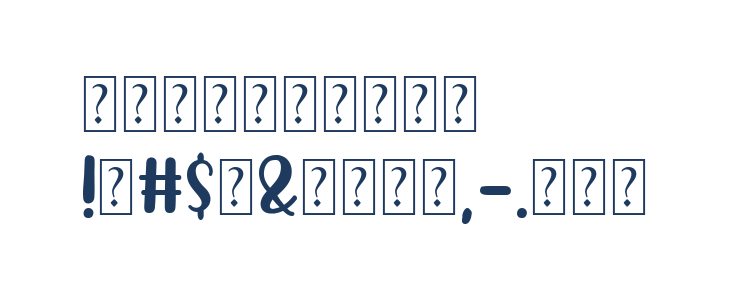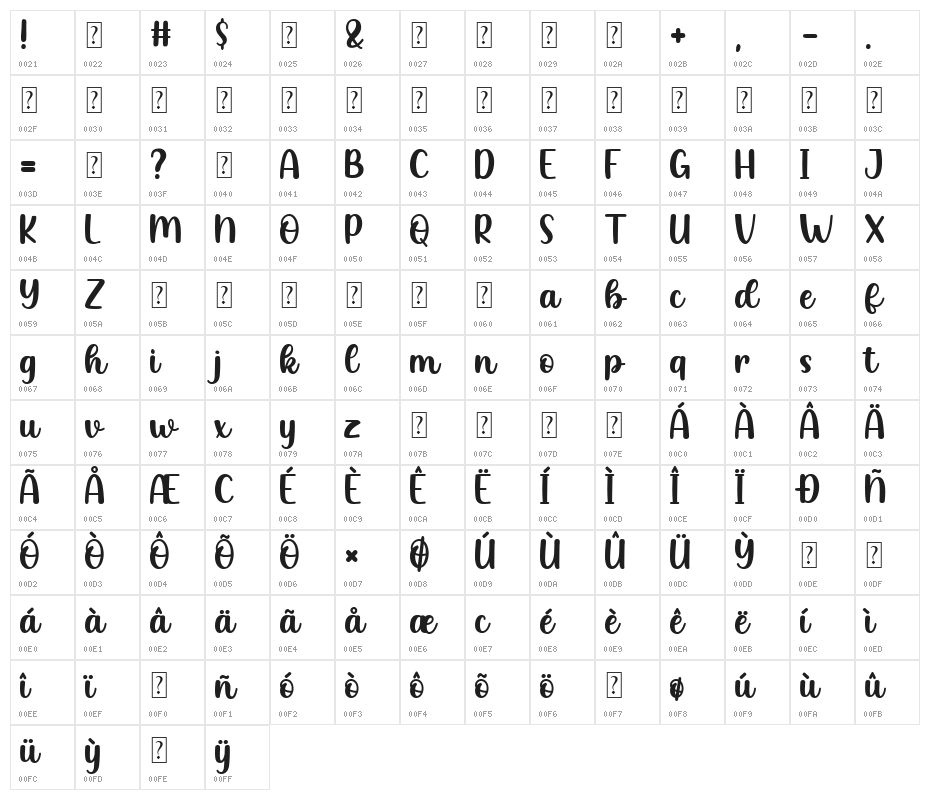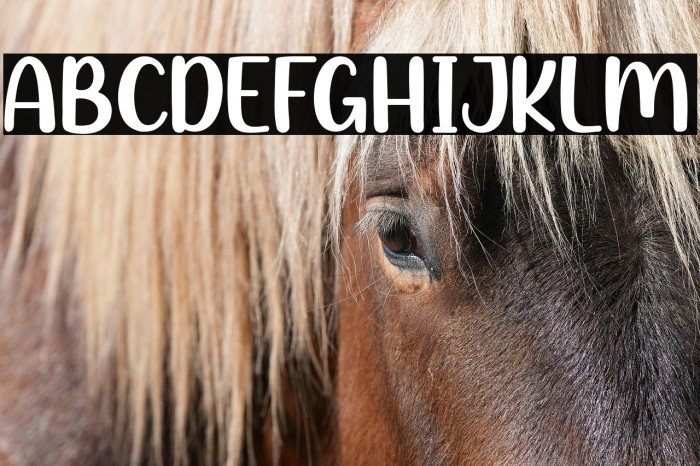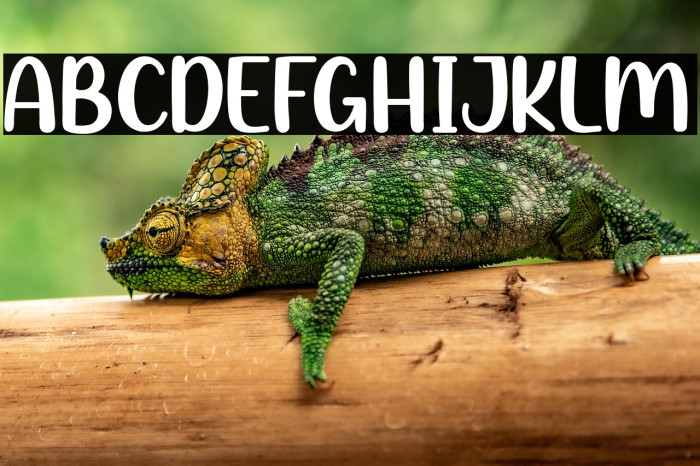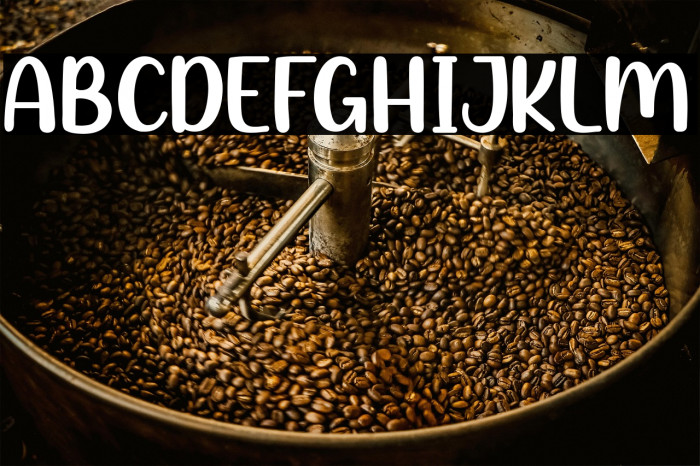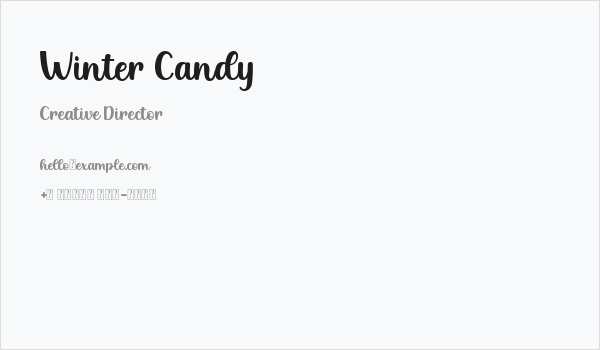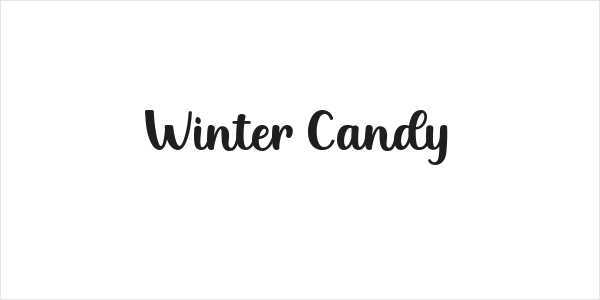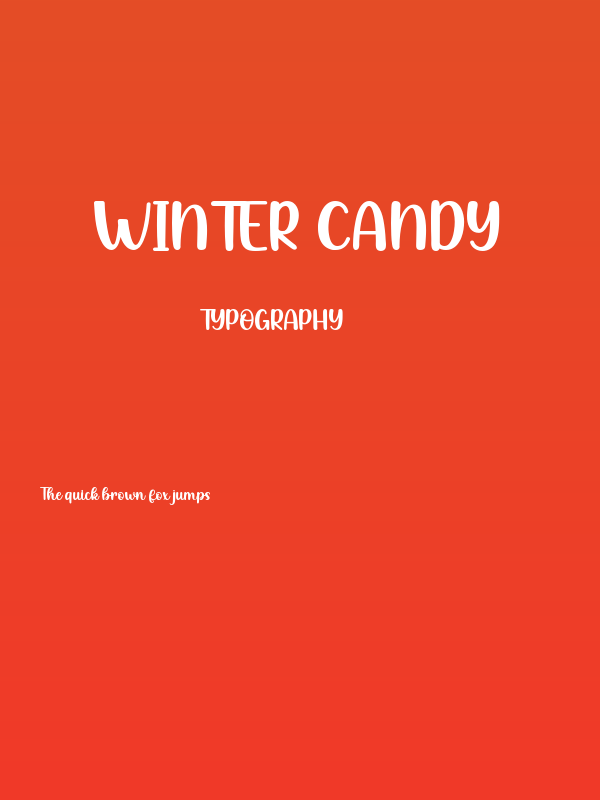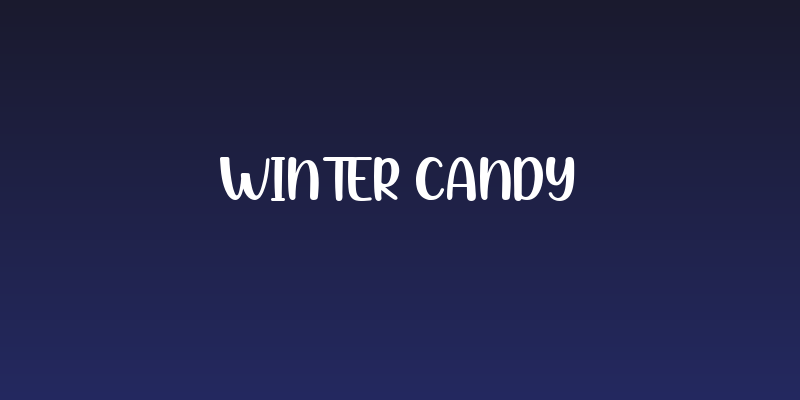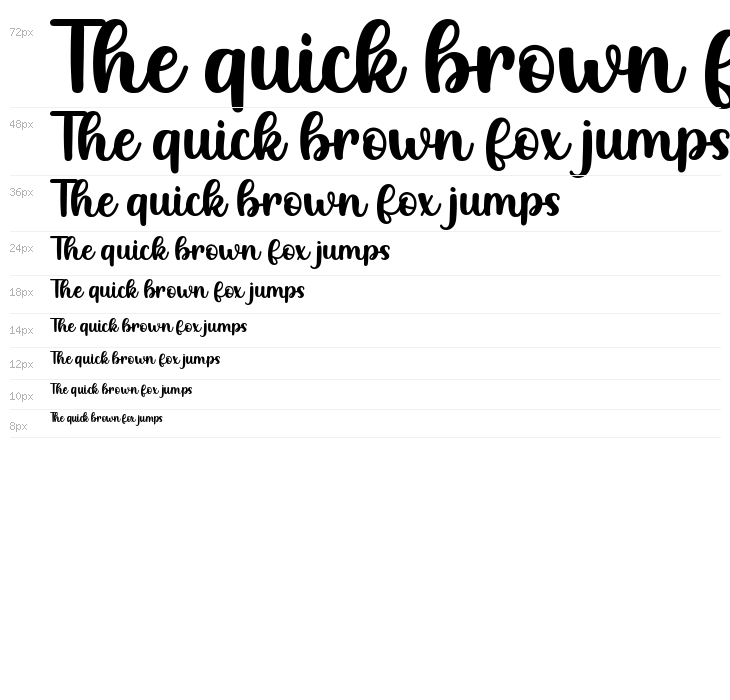
Winter Candy Font
Winter Candy Description
This playful and whimsical font features a bold, rounded style with a handwritten feel. The uppercase letters are tall and slightly narrow, while the lowercase letters have a more flowing, cursive appearance. The strokes are consistent in width, giving the font a uniform look. The special characters maintain the same playful style, making it versatile for various creative projects. The font's overall appearance is friendly and approachable, suitable for designs that aim to convey warmth and charm.
| Use Case | Headlines, Logos, Greeting Cards |
| Proposed Projects | Ideal for greeting cards, children's books, playful branding, and social media graphics. |